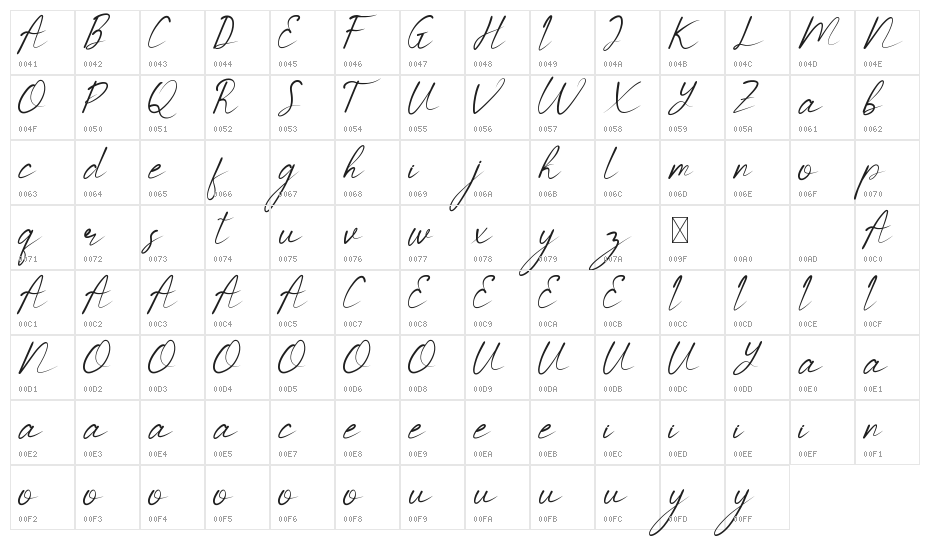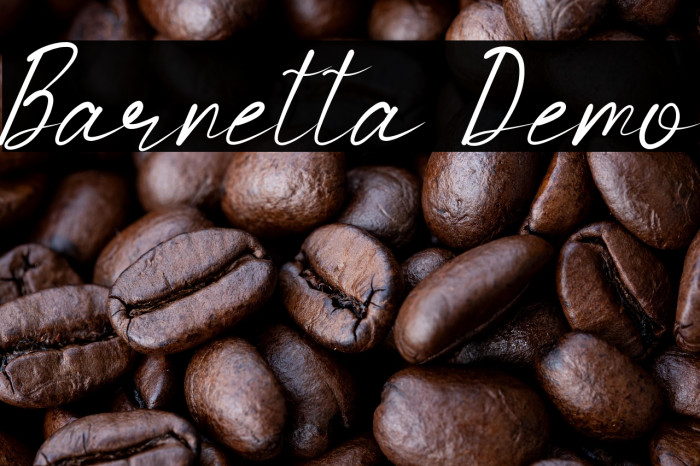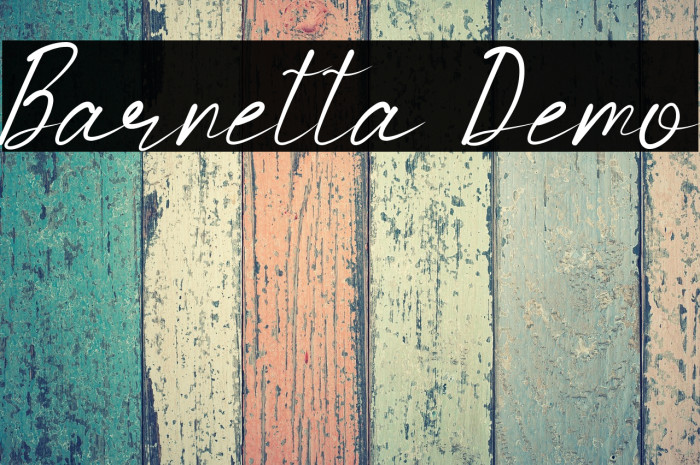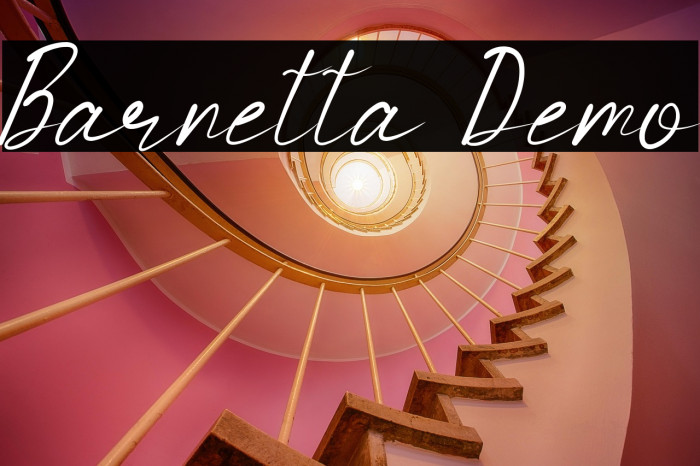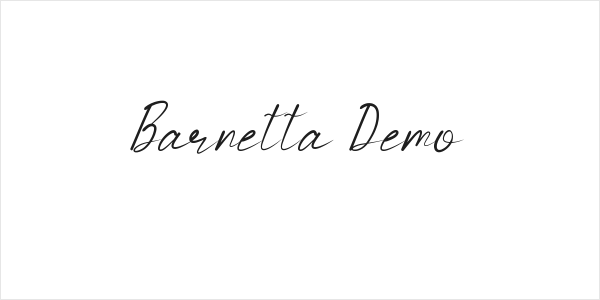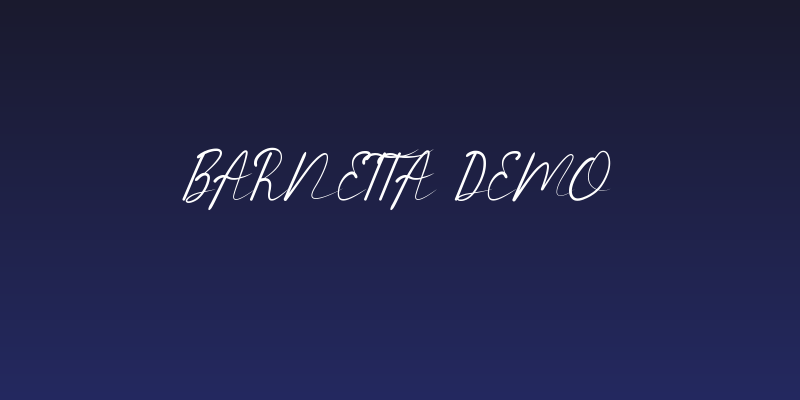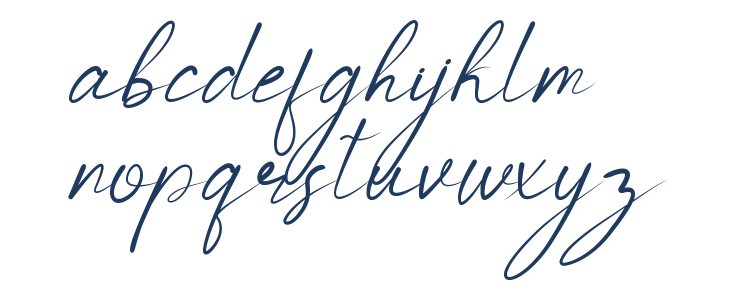
Barnetta Demo Font
Barnetta Demo Description
This elegant script font features a flowing, cursive style with smooth, connected letters that mimic the fluidity of handwriting. The uppercase letters are tall and graceful, while the lowercase letters maintain a consistent slant, enhancing the overall sense of movement. The strokes are thin and delicate, with a slight variation in thickness that adds a touch of sophistication. The font's design is both classic and modern, making it versatile for various applications. Its artistic flair makes it ideal for projects that require a personal touch, such as invitations, greeting cards, and branding materials.
| Overall Style | Elegant, Modern |
| Proposed Projects | Ideal for wedding invitations, greeting cards, personal branding, and elegant signage. |